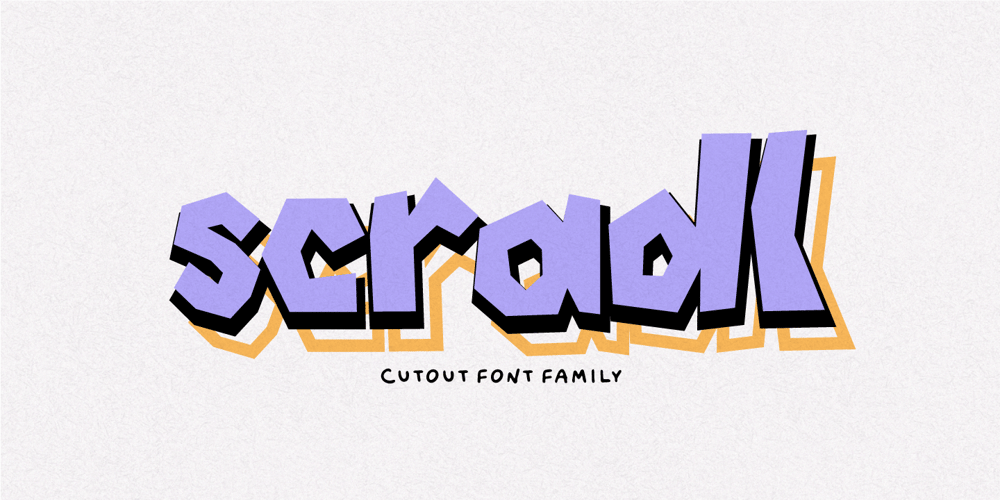
Scradl Font Family was designed by Lauritta Ivanova and published by Luxfont. Scradl contains 7 styles and family package options. Welcome to the world of SCRADL – where fonts become the tool of the cutter and the artist at the same time. These letters, as if cut out of paper without preliminary drawings, are rough, angular and full of character.The main font is the canvas for your creativity. Additional variations add a stroke, shadow, or even a sticker effect, creating a harmonious visual interaction.Features:- Multilingual- Kerning- Ability to adapt letters to other languagesld.luxfont@gmail.com